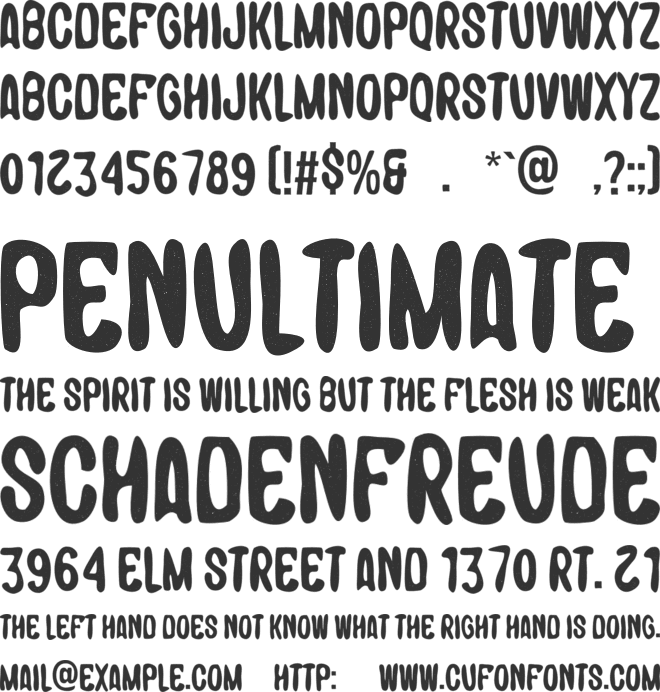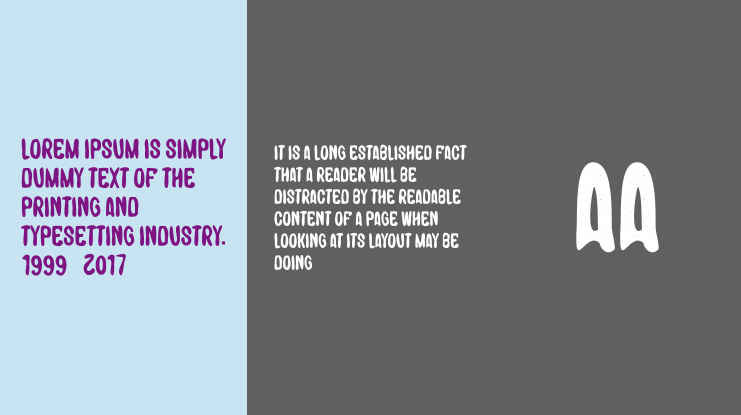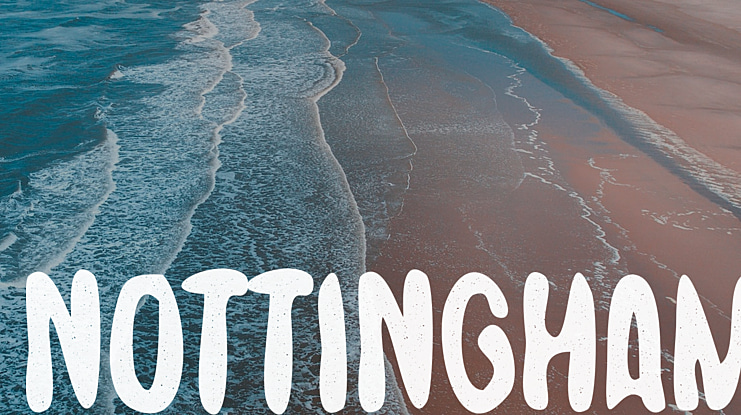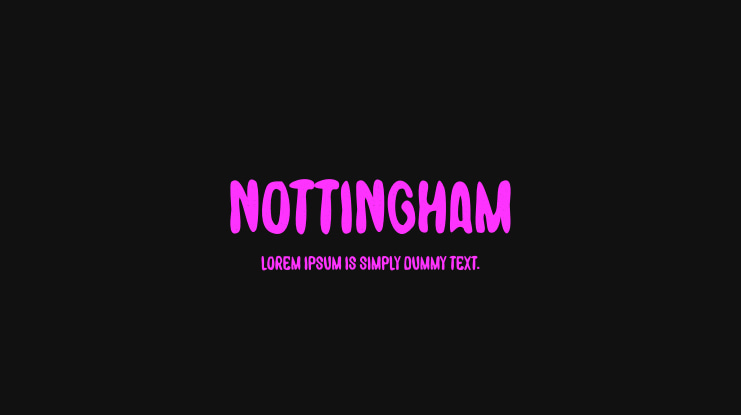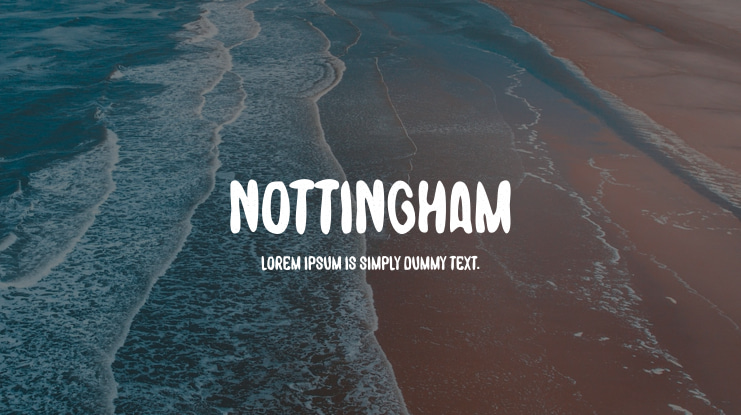
Introducing Nottingham | Textured Handrawn Typeface
A beautifully rounded display typeface, Textured Handrawn Typeface is perfect for a variety of creative applications.
Use this versatile font for a range of projects including ads, album covers, apparel, cards, flyers, invitations, logos, menus, merchandise, packaging, signage, web designs, and more.